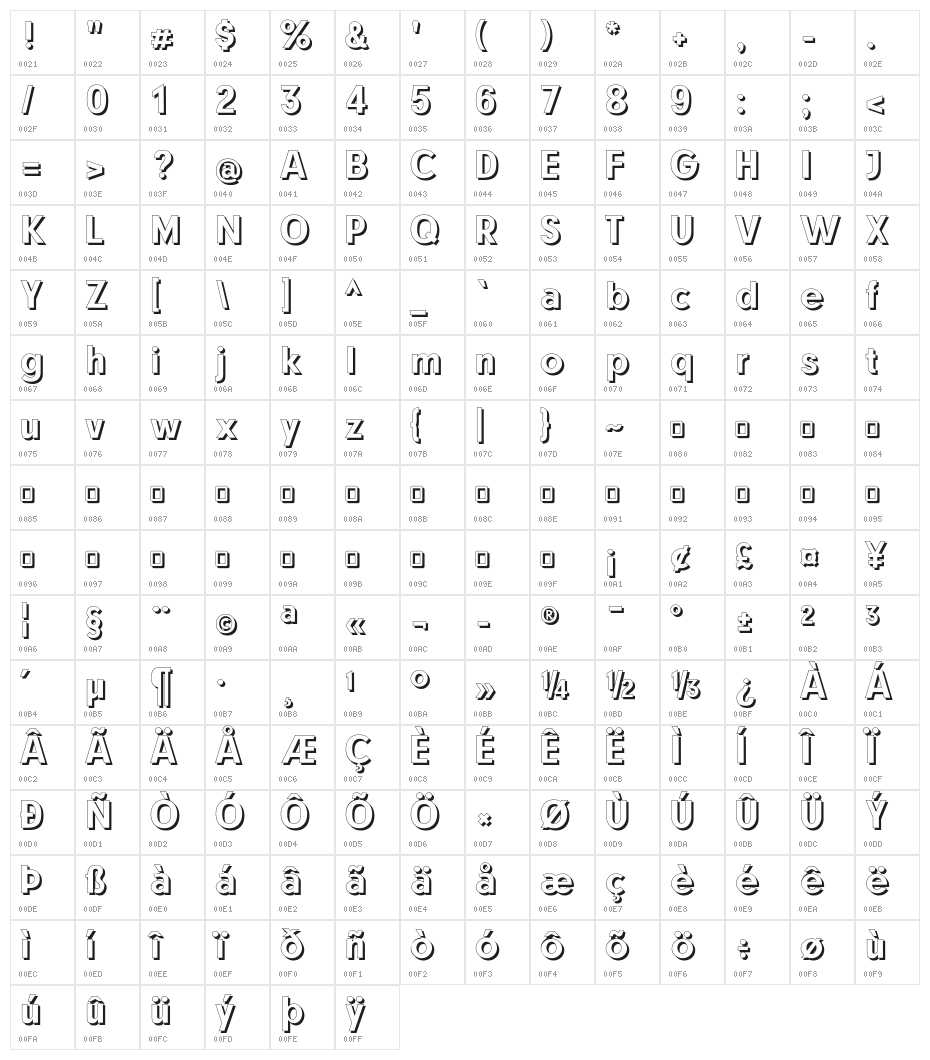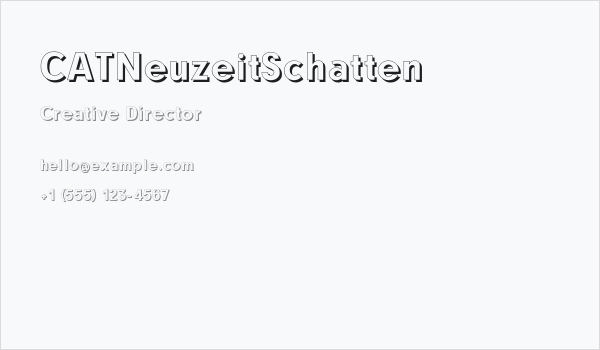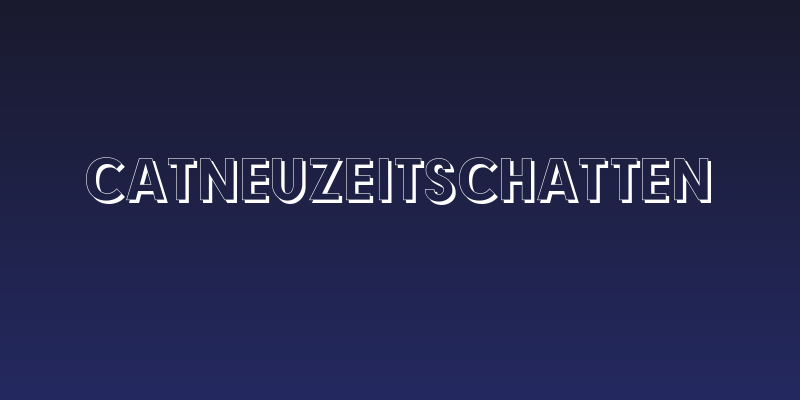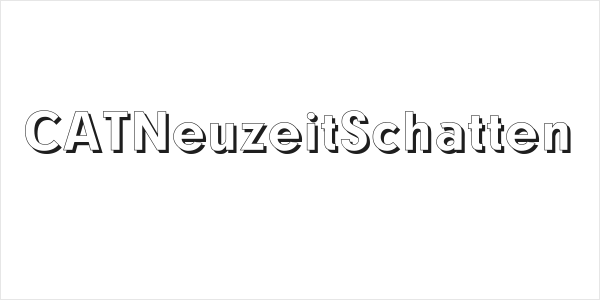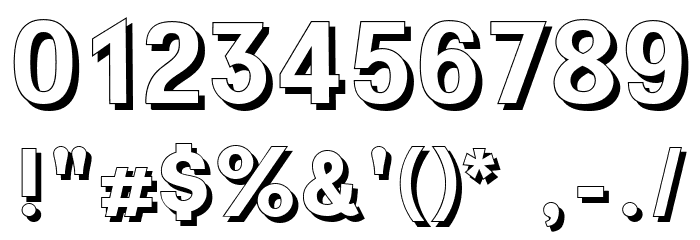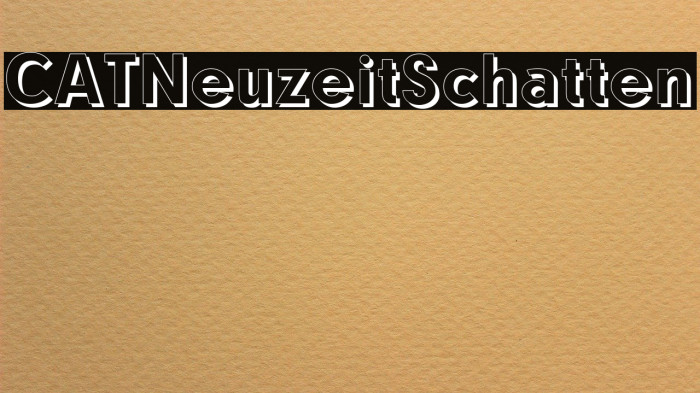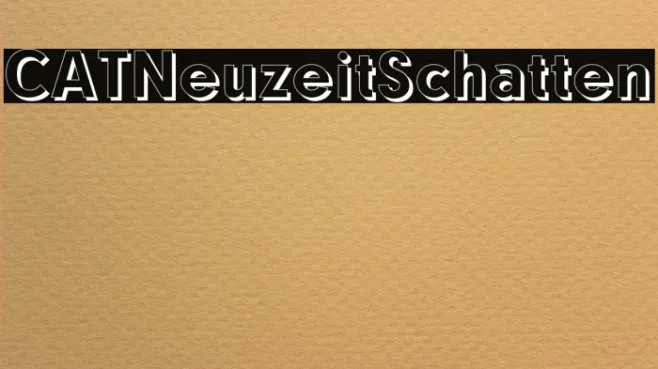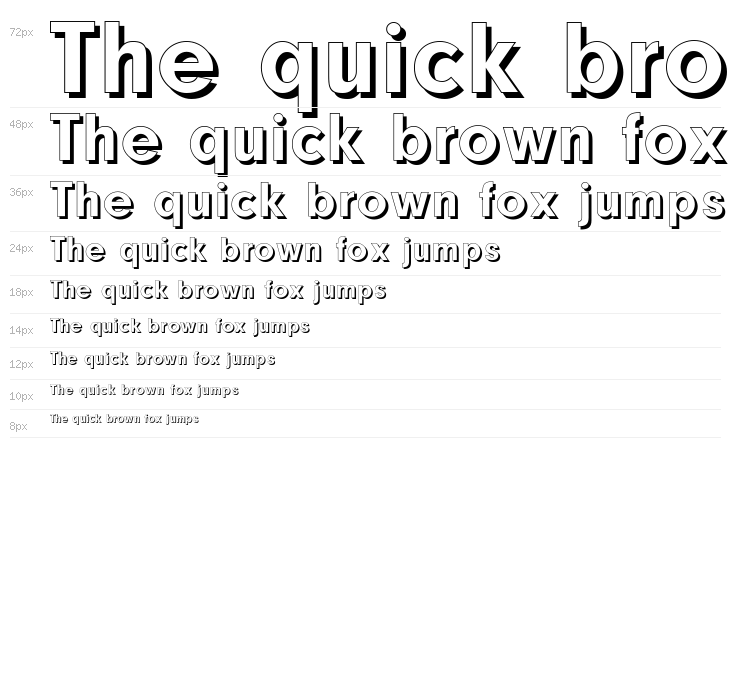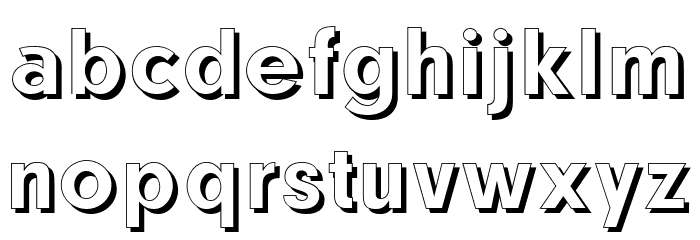
CATNeuzeitSchatten Font
CATNeuzeitSchatten Description
This font features a bold, geometric sans-serif style with a distinct shadow effect that adds depth and dimension to each character. The uppercase and lowercase letters maintain a consistent weight, providing a strong visual presence. The numerals and special characters are designed with the same shadowed effect, ensuring uniformity across all glyphs. The font's clean lines and modern aesthetic make it versatile for various design applications. Its shadow detail gives it a unique, eye-catching quality that stands out in both digital and print media.
| Proposed Projects | Ideal for headlines, posters, branding, and any design project requiring a modern and impactful typeface. |